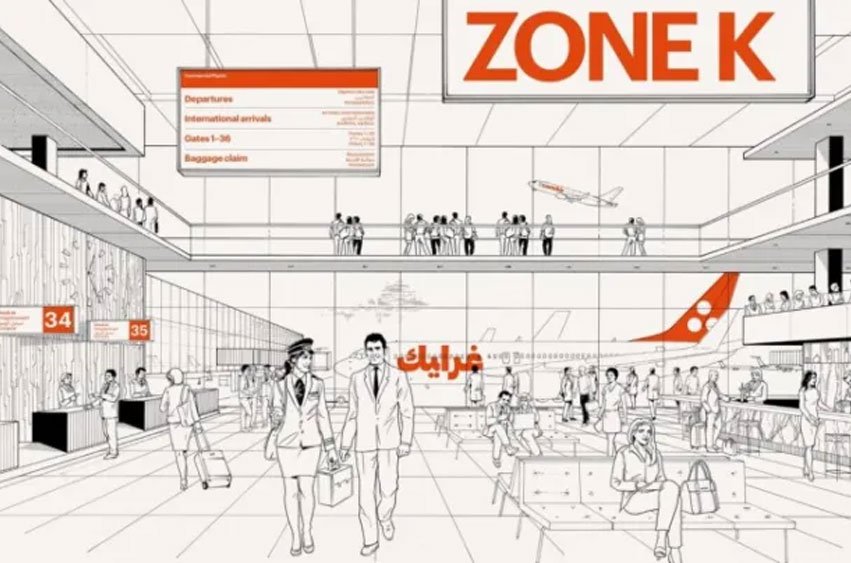
Graphik Commercial Font Commercial Type’s most popular typeface, was originally not intended for release.
“When I first started working on it,” recalled designer Christian Schwartz, “I just wanted a plain, unfussy typeface to use in my occasional forays into graphic design, and for utilitarian tasks in my own studio: invoices, contracts, and labels for presentations.